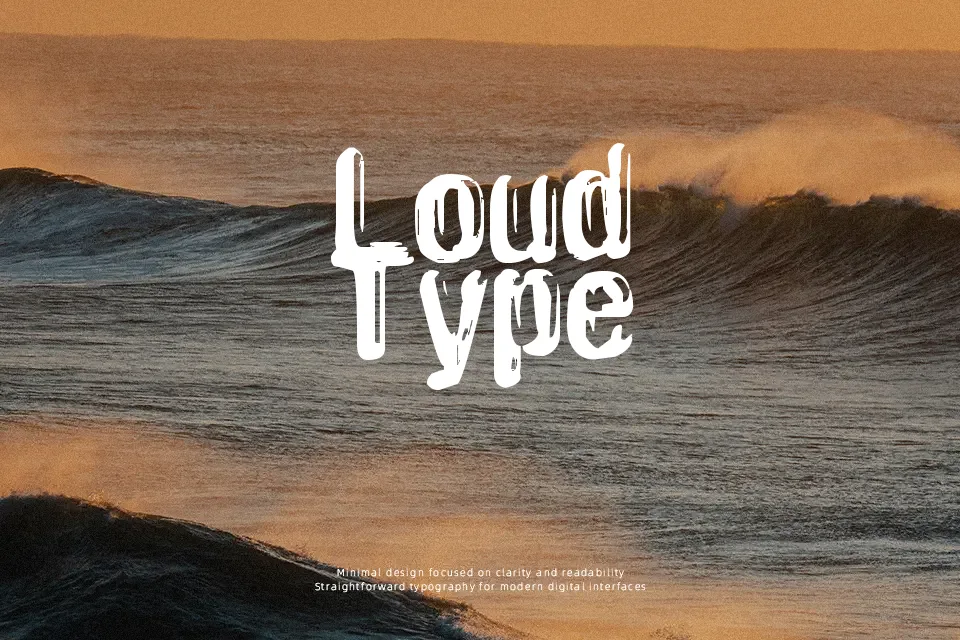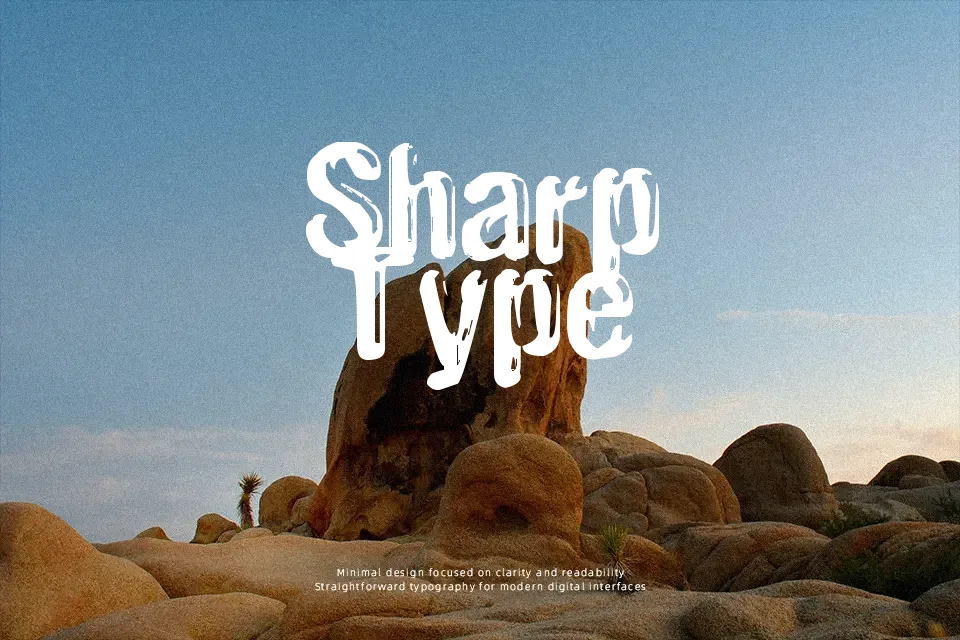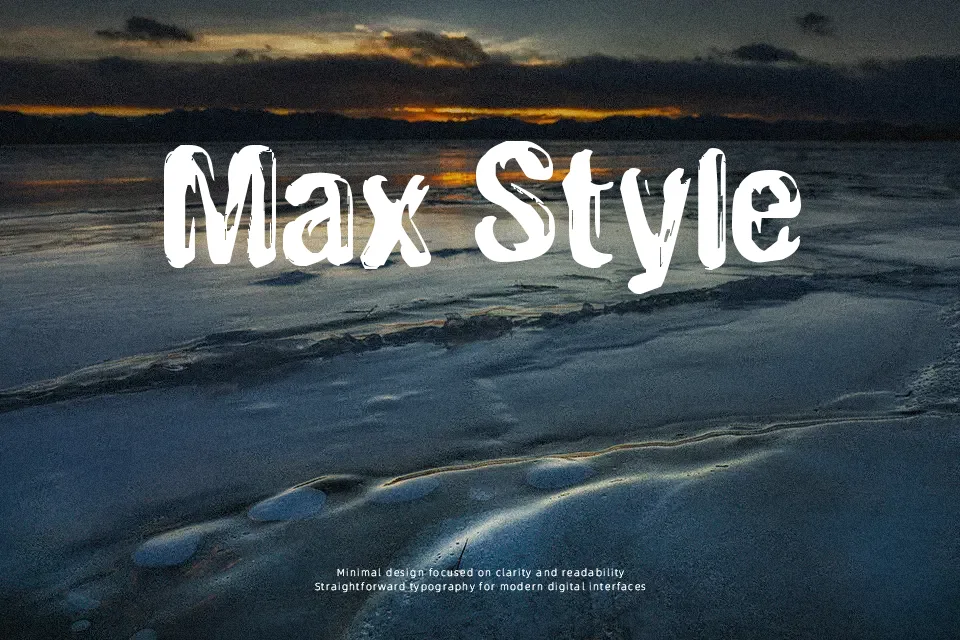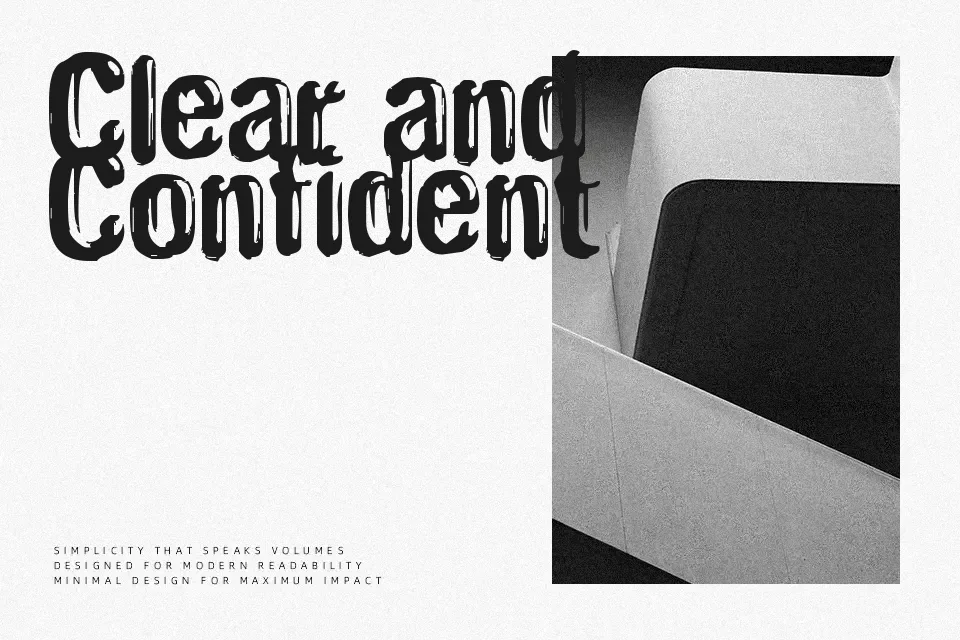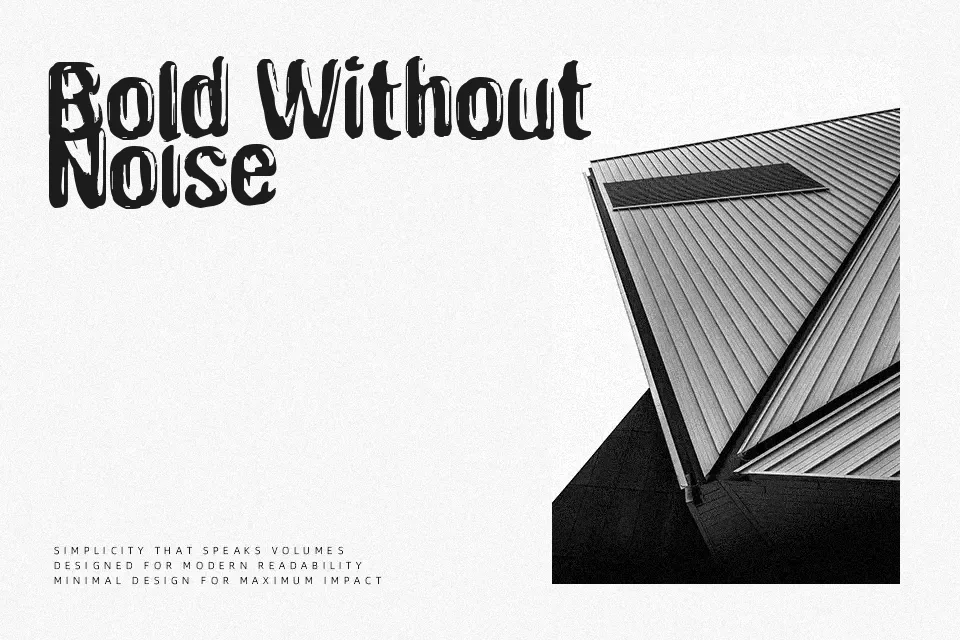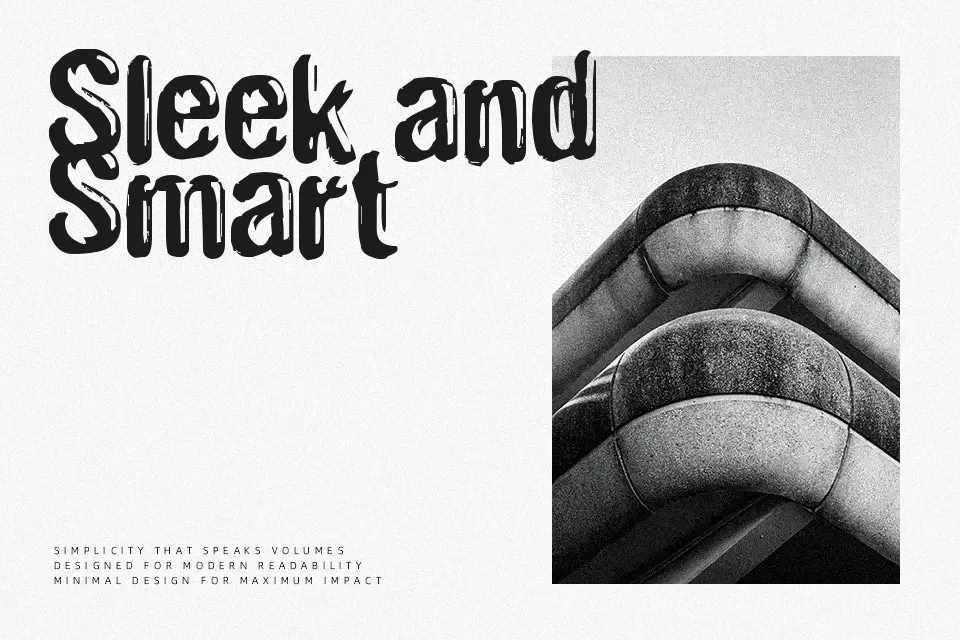
Plekkmees 2 Font
Designed by Andrus Peegel
Plekkmees 2 Font introduces a rugged aesthetic with its heavily distressed strokes and solid blocky structure. The letterforms showcase a consistent eroded texture that mimics weathered stamping, paired with balanced spacing and bold proportions to maximize visual impact. Its heavy weight ensures the typeface maintains a commanding presence, making it highly suitable for industrial product packaging, music festival graphics, and striking apparel designs. The robust underlying forms help preserve overall clarity in larger headlines despite the heavy grunge detailing. However, the textured edges and dense forms reduce comfort during extended reading, making it less suitable for long paragraphs. This design performs best when utilized at larger display sizes where its raw mechanical details can be fully appreciated.
Best For: industrial product packaging, grunge music festival posters, striking apparel graphics, bold industrial branding
Not Ideal For: long paragraph text, dense editorial layouts, small interface labels, spreadsheet data
Perfect for branding, headline, and music, with a bold and decorative style.